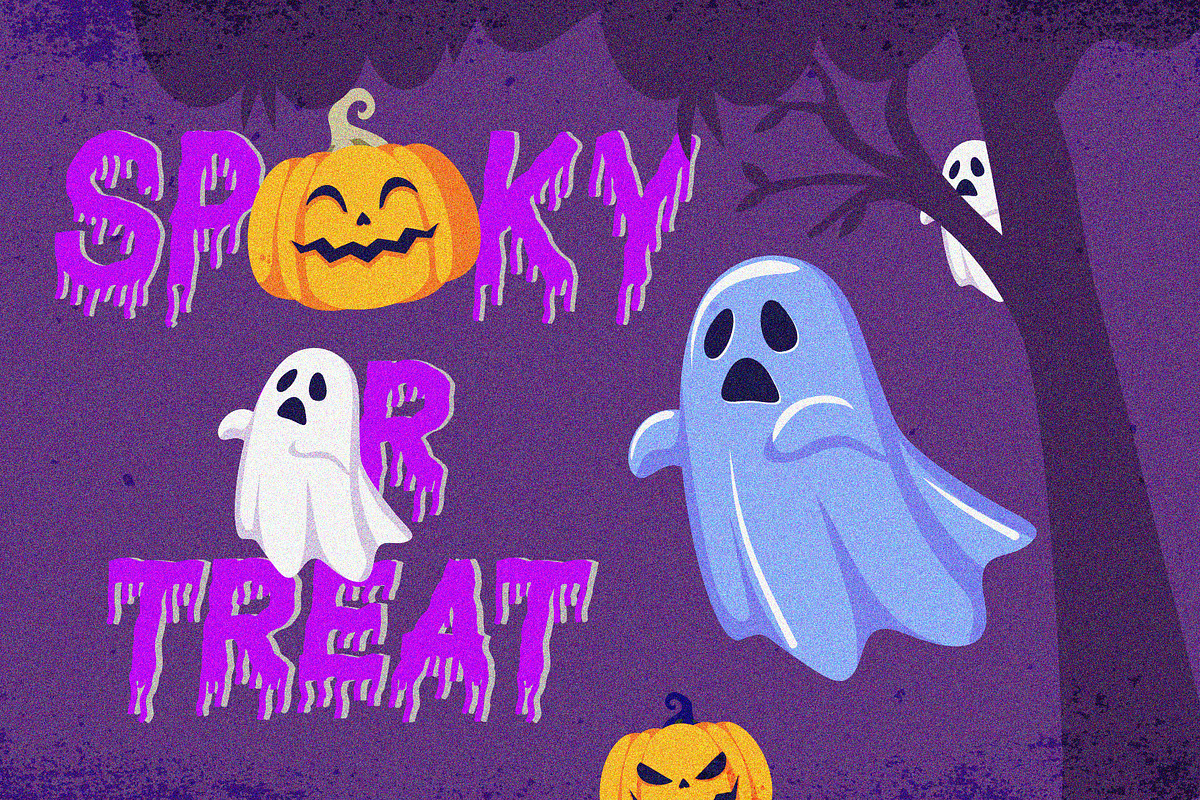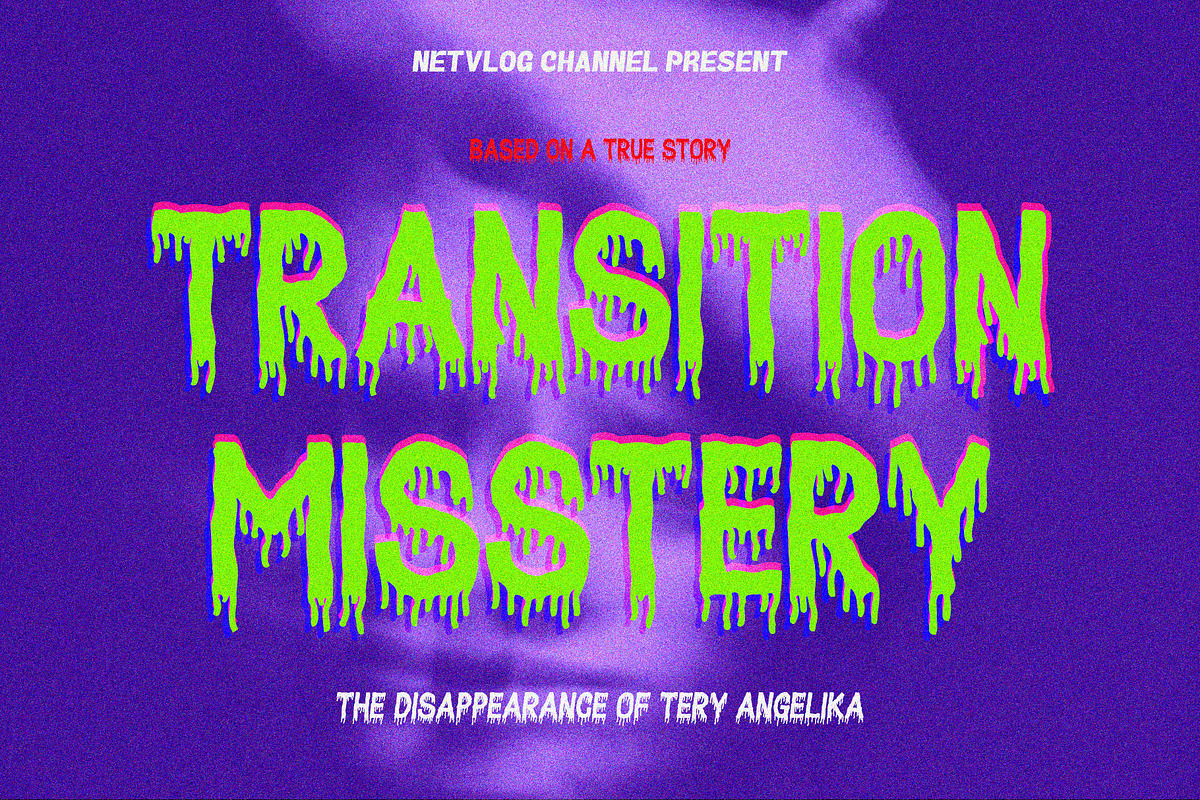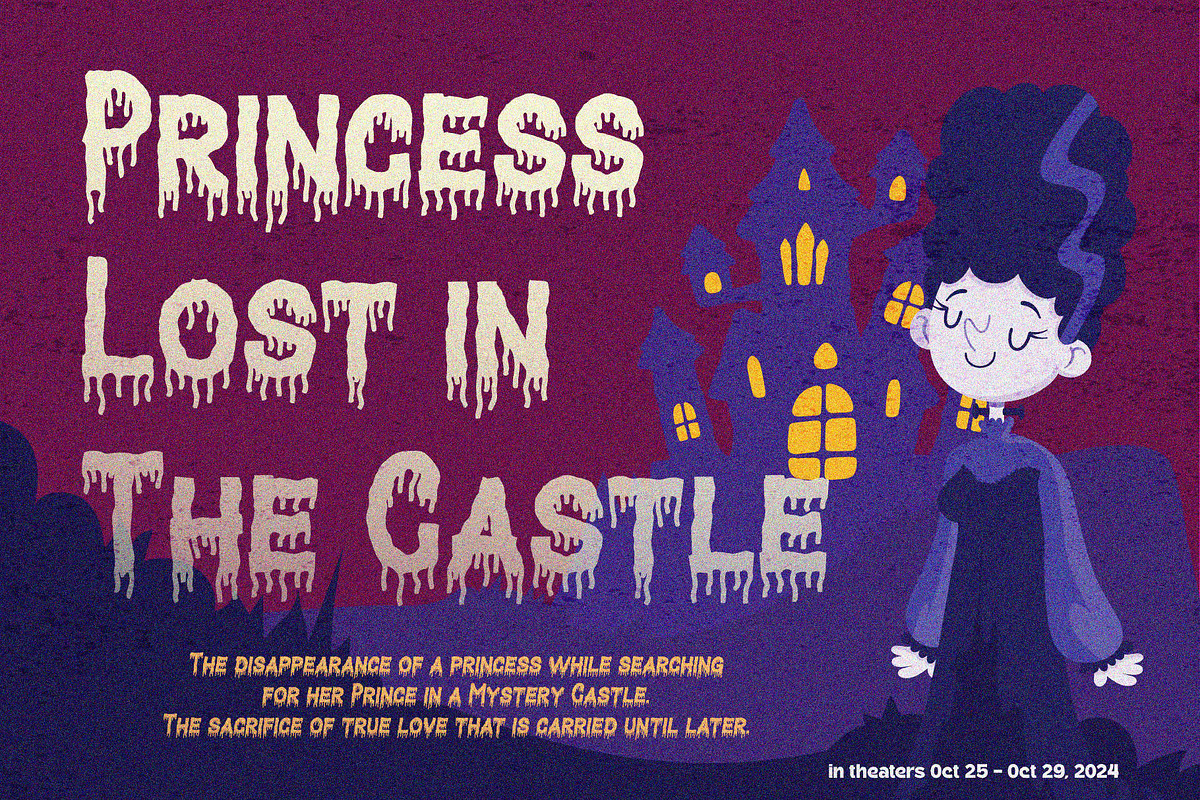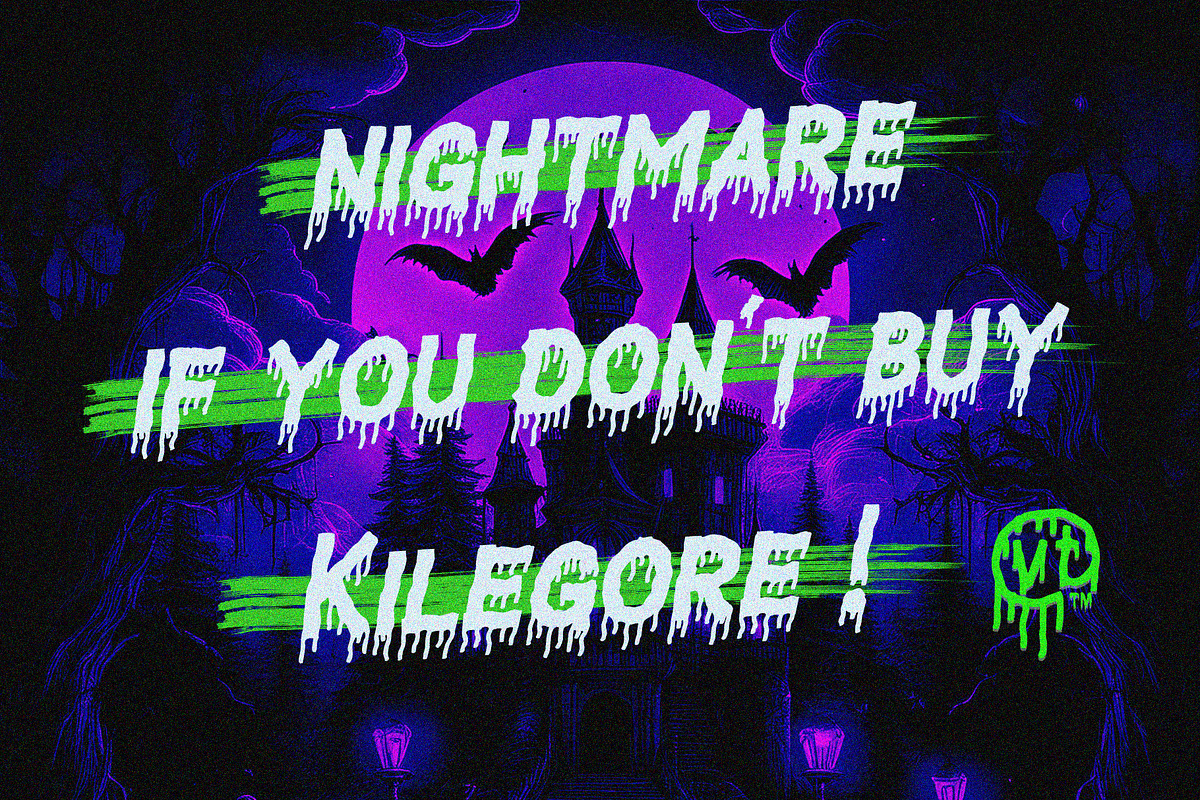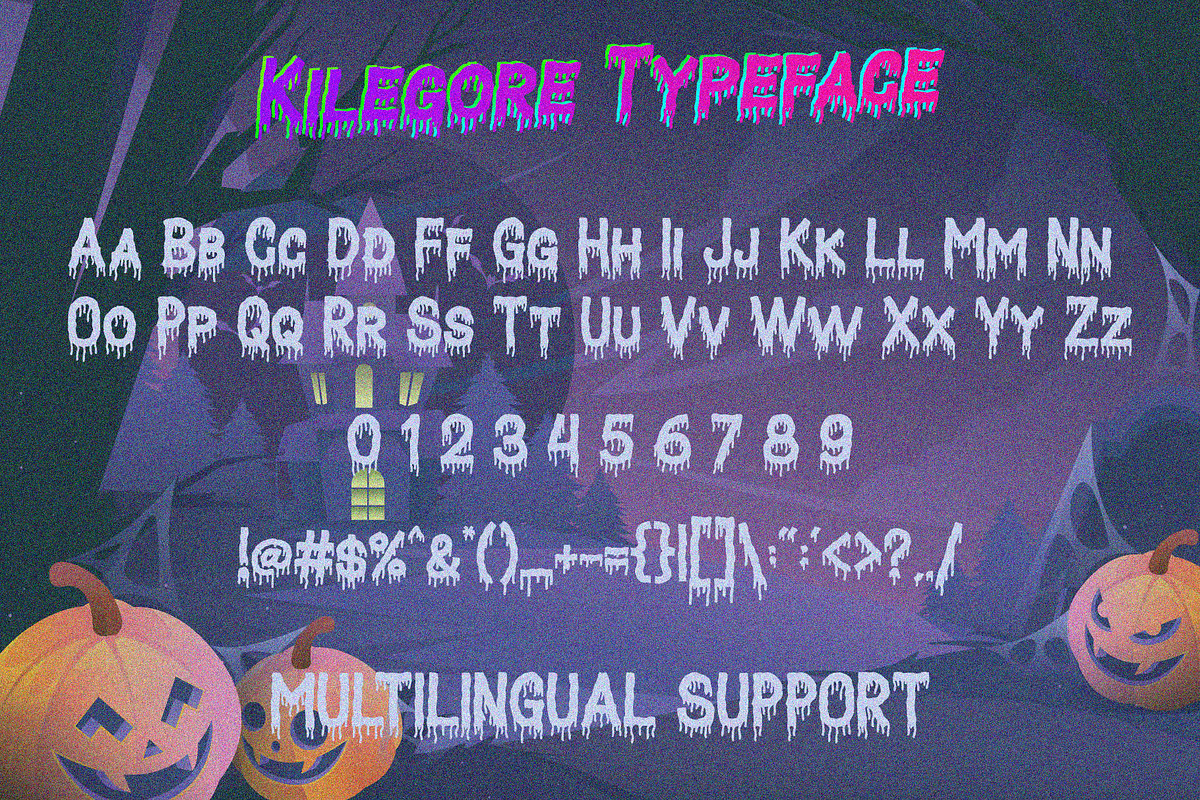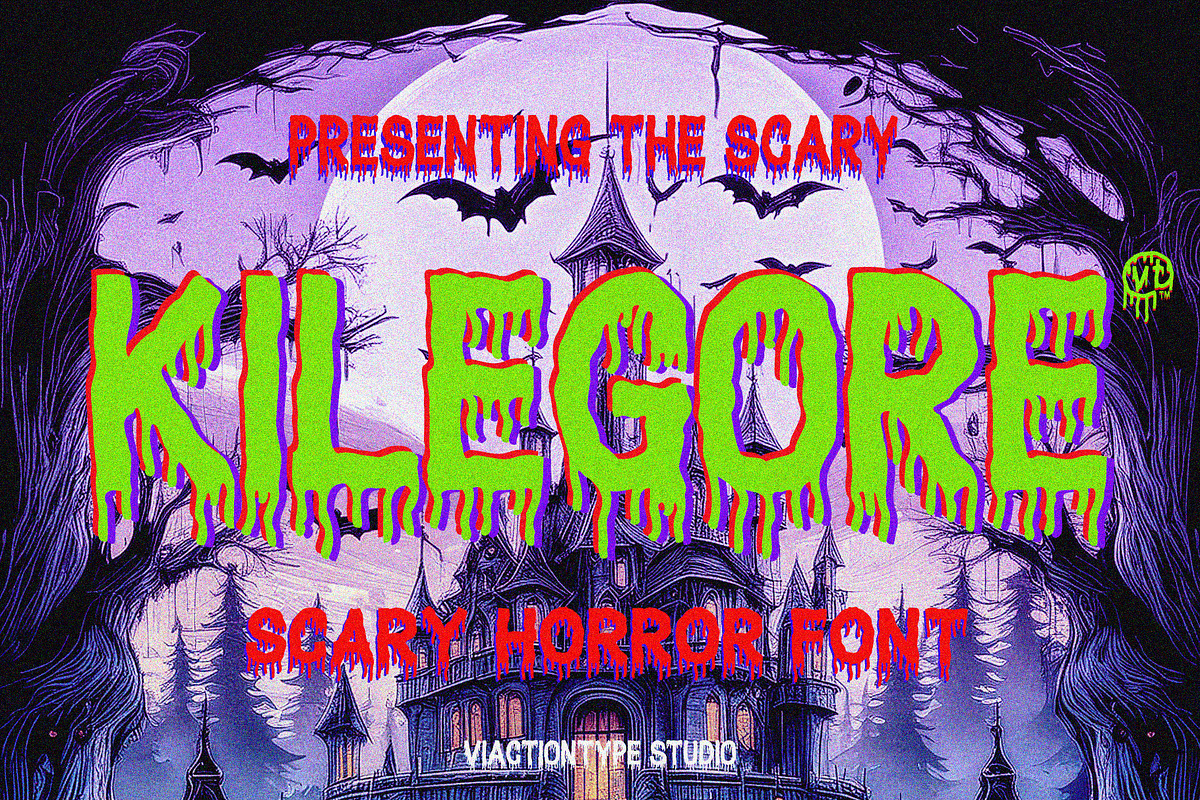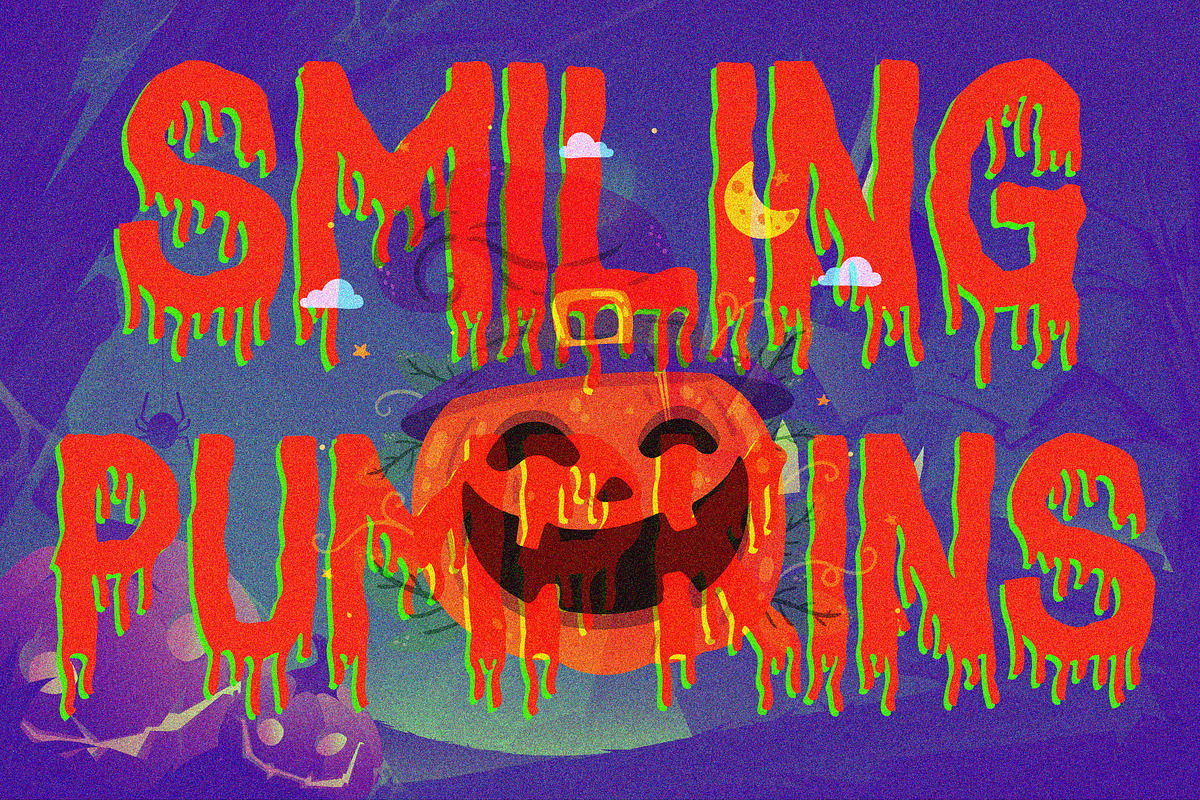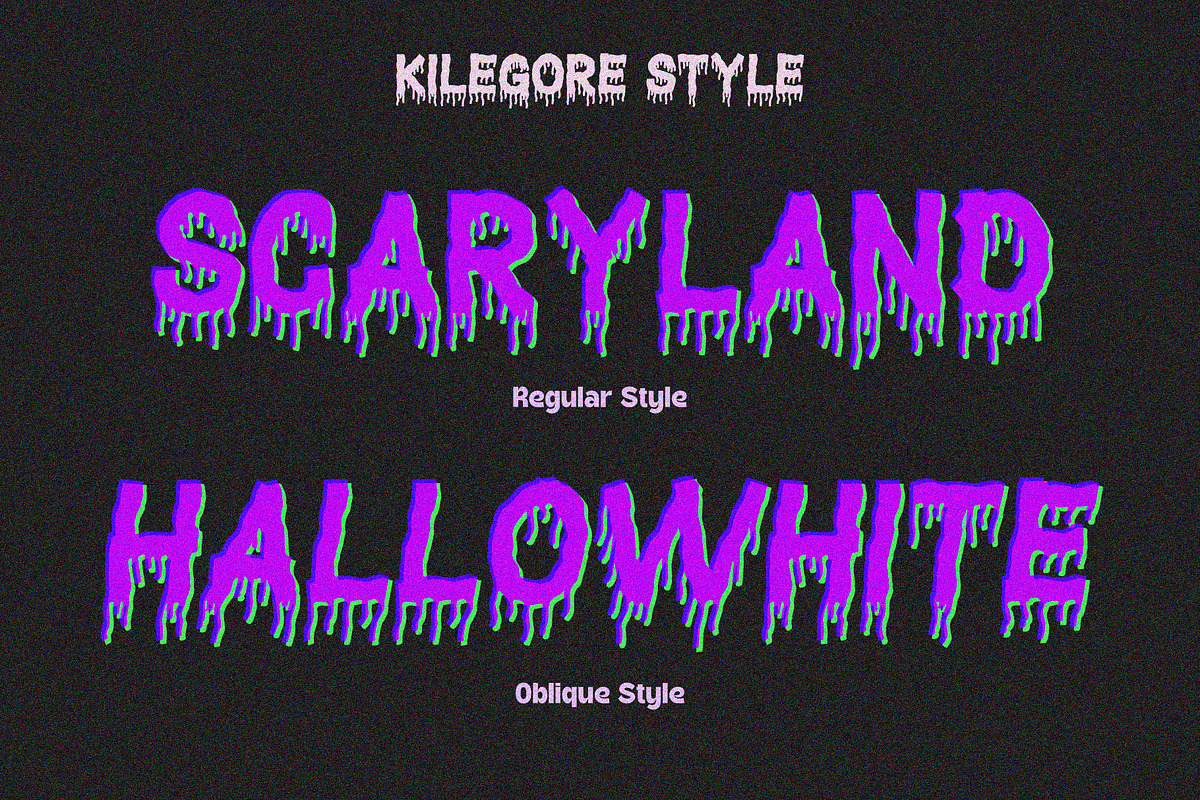
VT Kilegore - Scary Horror Font
Introducing Kilegore, a chilling display font designed for all your horror and Halloween-themed projects. This sans-serif typeface features a unique rough texture and dripping letterforms, perfectly capturing the eerie essence of the spooky season.
- Two Styles: Choose between the bold Regular and the dynamic Oblique styles to create striking contrasts in your designs.
- Horror Aesthetic: Kilegore’s distinctive dripping edges evoke a sense of mystery and terror, making it ideal for posters, invitations, and digital media centered around Halloween.
- Versatile Usage: Whether you’re crafting a creepy movie poster, a haunted house flyer, or promotional material for your Halloween event, Kilegore adds a spine-chilling flair to any project.
- High Readability: Despite its dramatic style, Kilegore maintains excellent readability, ensuring your messages are clear even in dim lighting.
Elevate your Halloween designs with the hauntingly beautiful Kilegore font. Perfect for graphic designers, marketers, and anyone looking to add a touch of spookiness to their work, this font is a must-have for the eerie season.
Get Kilegore today and let your creativity ooze with frightful delight!